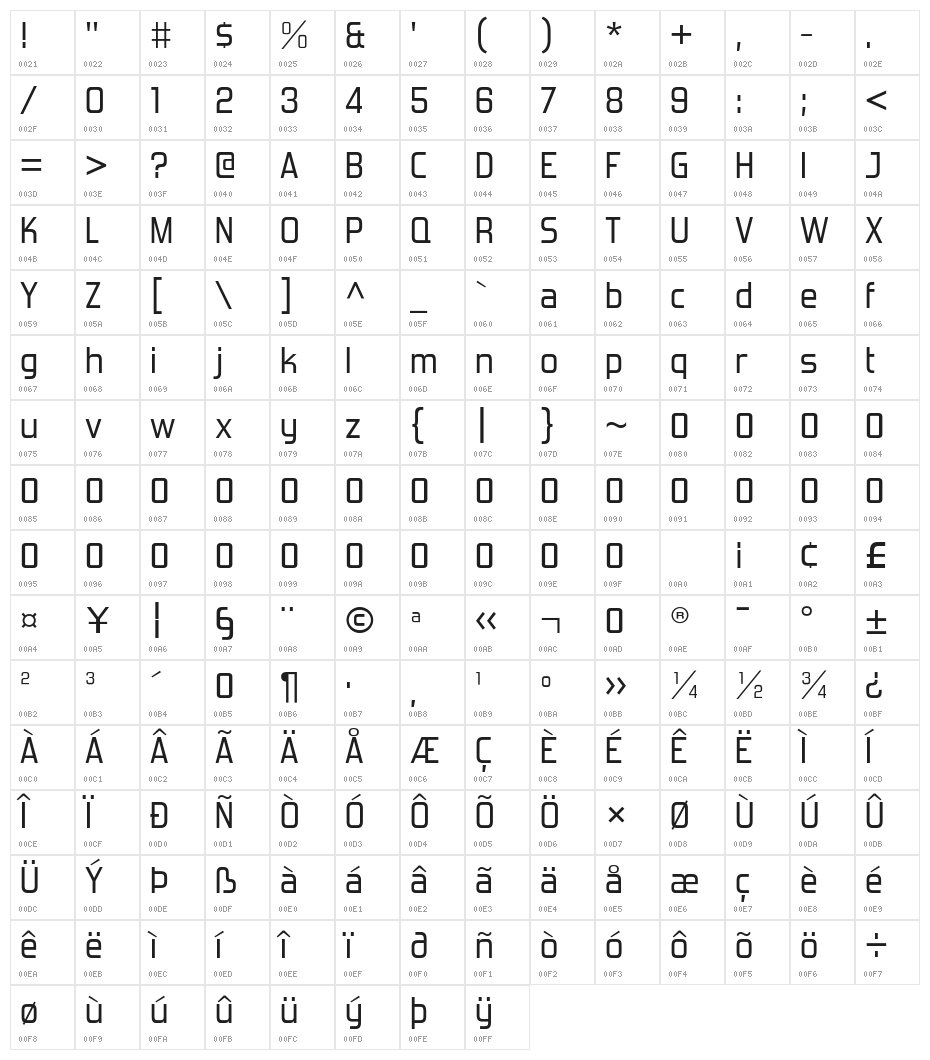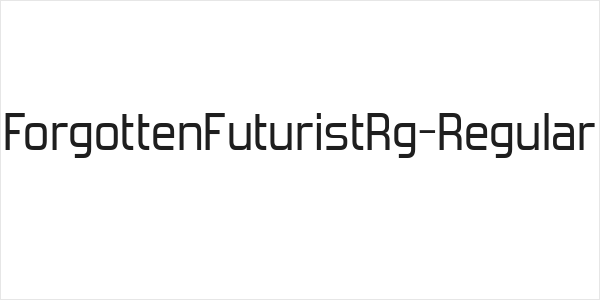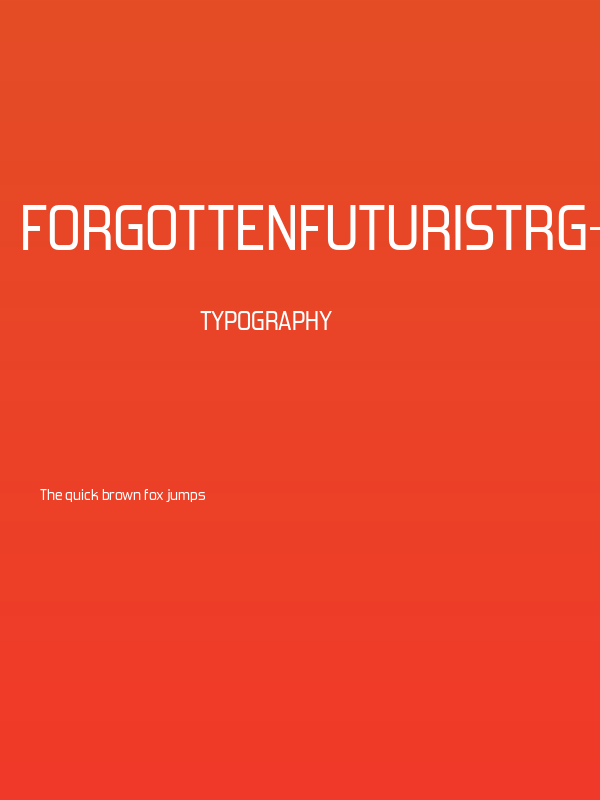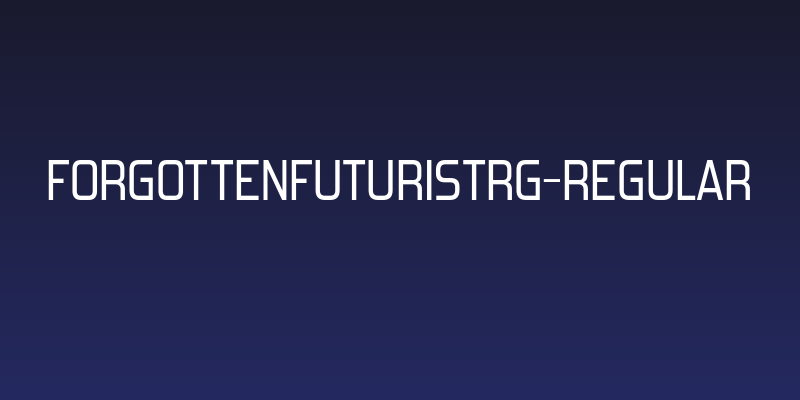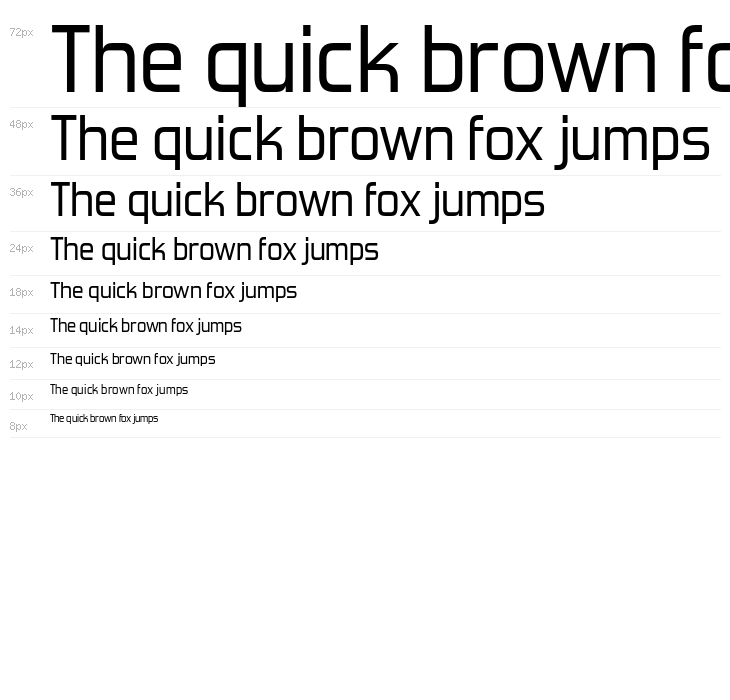
ForgottenFuturistRg-Regular Font
ForgottenFuturistRg-Regular Description
This font features a sleek, modern design with a geometric structure that emphasizes clarity and readability. The characters are uniformly constructed with consistent stroke widths, giving it a balanced and harmonious appearance. The uppercase and lowercase letters maintain a clean and straightforward aesthetic, while the numerals and special characters are designed to complement the overall style. The font's simplicity and precision make it versatile for various applications, from digital interfaces to print media.
| Proposed Projects | Ideal for tech branding, digital interfaces, signage, and editorial design. |